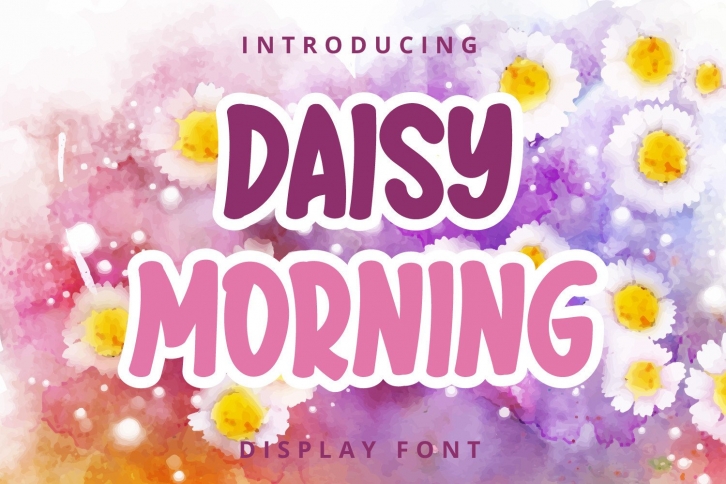
Daisy Morning is a beautiful display font with an alluring look. The thick and softly curved characters give this typeface a unique charm. You can use it for headlines, posters, covers, crafting projects, and many more!